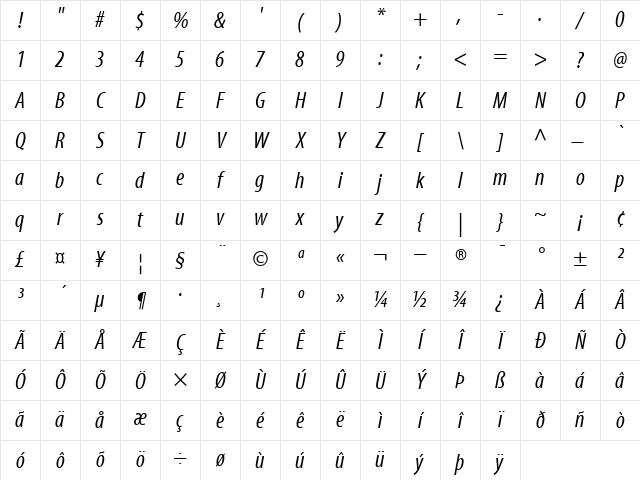
MyriadCn RomanItalic
Style: RomanItalic
Complete MyriadCn RomanItalic glyph index. Displaying only characters natively supported by MyriadCn RomanItalic font.
Design Context for MyriadCn
MyriadCn is a composed and adaptable typeface that performs quietly and consistently across a wide range of design contexts. The slanted form adds forward momentum and visual energy.
Pro Tip: Use MyriadCn for emphasis, pull quotes, and subheadings where its slanted energy can add rhythm to the layout.